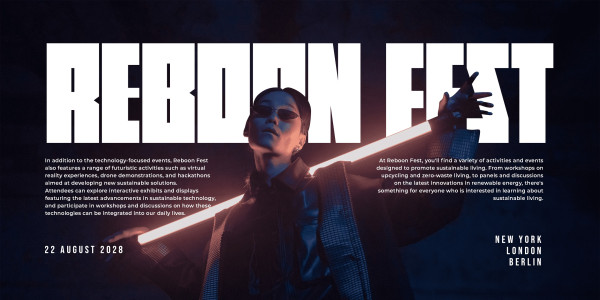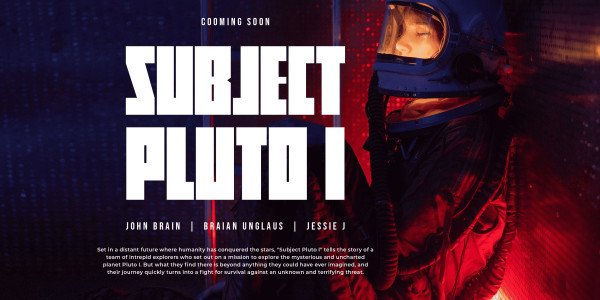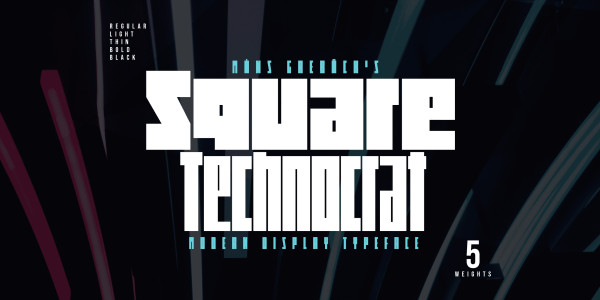
Square Technocrat Font
Square Technocrat Font is a sharp, geometric font that embodies the essence of structure and modernity.
Drawing inspiration from cube-like forms and contemporary architecture, this font family is perfect for designs that require a strong, stable presence.